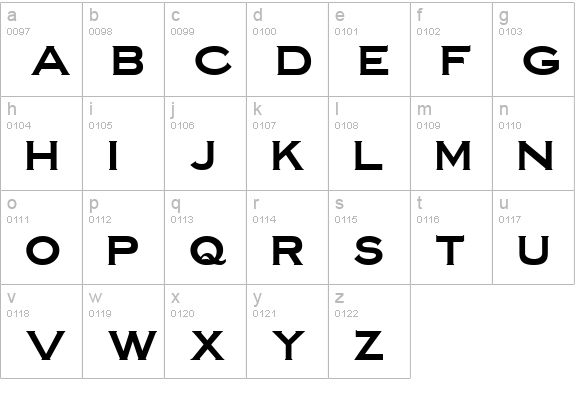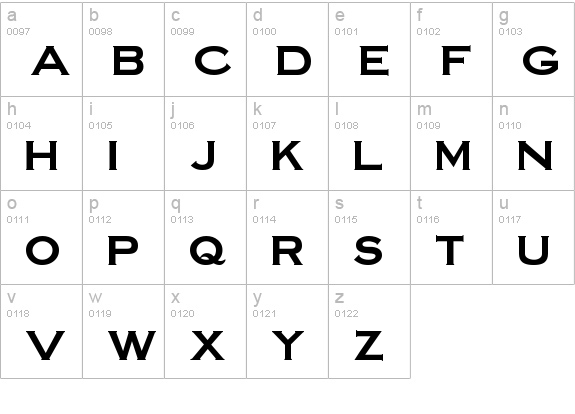
Steelplate Bold Font Details
Steelplate Bold is a strong, high-contrast variant in the Steelplate typeface family \xE2\x80\x94 well suited to headlines, attention-grabbing titles, and strong calls-to-action.
Steelplate Bold is a striking and authoritative font that exudes power and strength. Its bold and sturdy letterforms command attention and make a bold statement in any design project. With its clean lines and geometric shapes, Steelplate Bold is perfect for headlines, titles, logos, and other display purposes. What sets Steelplate Bold apart is not just its boldness, but also its versatility. This font can effortlessly adapt to various styles and themes, making it a versatile choice for designers. Whether you're working on a modern and sleek design or a vintage-inspired project, Steelplate Bold can be the perfect typographic solution. But what makes Steelplate Bold even more appealing is that it is absolutely free. That's right, you can freely download this font and use it in your personal and commercial projects without any limitations. Thanks to FontsMarket.com, Steelplate Bold is easily accessible to all designers who are looking for a high-quality and impactful font. So, if you're searching for a font that combines strength, boldness, and versatility, look no further than Steelplate Bold. Download it for free at FontsMarket.com and unleash its power in your designs.